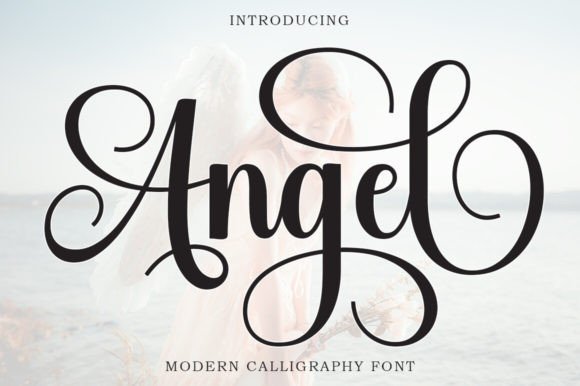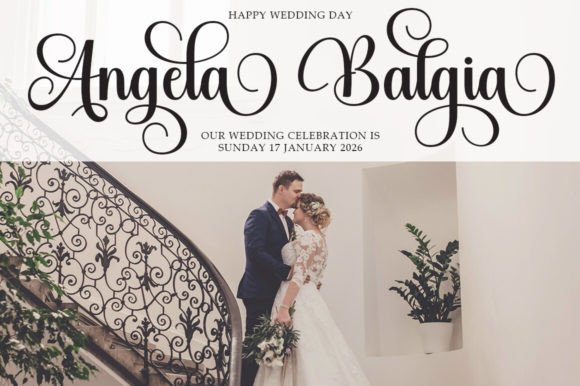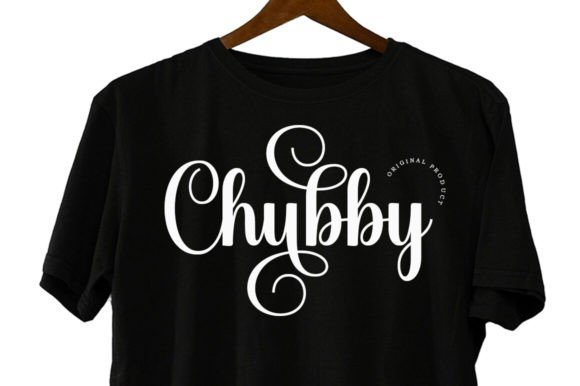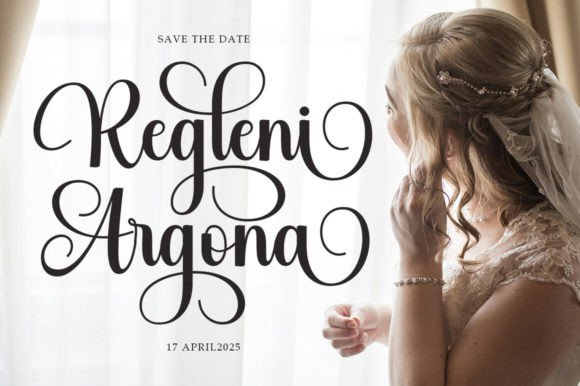
Angel Font
About the Angel Font
Introducing the Angel Font, a beautifully crafted typeface designed to elevate your creative projects. Angel is a stylish and very elegant script font. Looks stunning on wedding invitations, thank you cards, quotes, greeting cards, logos, business cards and any other design that requires an elegant handwritten touch.
Angel’s elegant, handwritten style is ideal for branding projects requiring a touch of sophistication, particularly logos, stationery, and short-form marketing materials. It excels in headlines and short text blocks on wedding invitations or luxury product packaging. However, its intricate detail makes it less suitable for body text or UI elements where readability is paramount. Avoid using it in long paragraphs or small sizes.
For effective pairings, consider complementing Angel’s script with a clean sans-serif like Montserrat for body copy or a geometric sans-serif like Futura for a modern contrast. A classic serif font such as Garamond can provide a sophisticated balance, while a simple, neutral sans-serif like Lato offers a versatile pairing for broader applications.
Angel projects a refined, sophisticated personality, best suited for brands associated with luxury, romance, or high-end craftsmanship. Its inherent elegance makes it unsuitable for projects requiring a bolder, more playful, or informal feel.